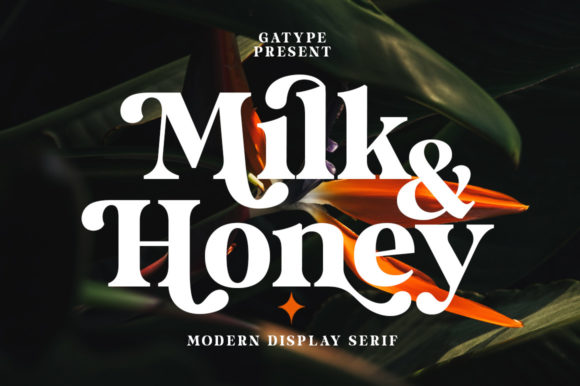
Milk and Honey Font: A Bold, Trendy, and Versatile Serif Font
The world of typography is vast and diverse, with numerous fonts available for designers to choose from. Among these, the Milk and Honey font stands out for its unique blend of boldness, trendiness, and versatility. In this article, we’ll delve into the features, benefits, and uses of the Milk and Honey font, exploring why it’s a popular choice among designers and how it can elevate your design projects.
What is Milk and Honey Font?
Milk and Honey is a bold, trendy, and thick lettered serif font that has gained significant attention in the design community. Its robust and eye-catching style makes it perfect for creating stunning designs that grab attention. The font is PUA (Private Use Area) encoded, which means that it offers a wide range of glyphs and swashes that can be accessed with ease.
Key Features of Milk and Honey Font
- Bold and Trendy: The Milk and Honey font boasts a bold and trendy style that is sure to make your designs stand out.
- Thick Lettered: The font features thick, chunky letters that add a touch of sophistication to your designs.
- Serif Font: As a serif font, Milk and Honey offers a classic and timeless look that works well for a variety of design projects.
- PUA Encoded: The font’s PUA encoding allows for easy access to glyphs and swashes, making it simple to customize and extend the font.
- Versatile: The Milk and Honey font is incredibly versatile, making it suitable for a wide range of design applications.
Benefits of Using Milk and Honey Font
The Milk and Honey font offers several benefits that make it an attractive choice for designers. Some of the key advantages include:
- Attention-Grabbing: The font’s bold and trendy style ensures that your designs will grab attention and stand out from the crowd.
- Easy to Read: Despite its bold style, the Milk and Honey font is easy to read, making it suitable for use in a variety of contexts.
- Customizable: The font’s PUA encoding and range of glyphs and swashes make it easy to customize and extend the font to suit your design needs.
- Time-Saving: With its versatility and range of features, the Milk and Honey font can save you time and effort in your design projects.
Uses of Milk and Honey Font
The Milk and Honey font is incredibly versatile, making it suitable for a wide range of design applications. Some of the most popular uses of the font include:
- Logo Design: The font’s bold and trendy style makes it perfect for creating stunning logos that grab attention.
- Branding: The Milk and Honey font can be used to create a consistent brand identity across a range of materials, from business cards to billboards.
- Advertising: The font’s attention-grabbing style makes it ideal for use in advertising, from print ads to digital campaigns.
- Packaging: The Milk and Honey font can be used to create eye-catching packaging that stands out on store shelves.
- Digital Design: The font can be used in a range of digital design applications, from social media graphics to website headers.
Tips for Using Milk and Honey Font
To get the most out of the Milk and Honey font, here are a few tips to keep in mind:
- Use it Sparingly: While the Milk and Honey font is bold and attention-grabbing, it can be overwhelming if used excessively. Use it sparingly to create maximum impact.
- Pair it with Other Fonts: The font pairs well with a range of other fonts, so don’t be afraid to experiment with different combinations.
- Experiment with Colors: The Milk and Honey font looks great in a range of colors, so experiment with different hues to find the perfect combination for your design.
In conclusion, the Milk and Honey font is a bold, trendy, and versatile serif font that is perfect for designers looking to create stunning designs. With its PUA encoding, range of glyphs and swashes, and attention-grabbing style, it’s an excellent choice for a wide range of design applications. By following the tips outlined in this article, you can get the most out of the Milk and Honey font and take your designs to the next level.